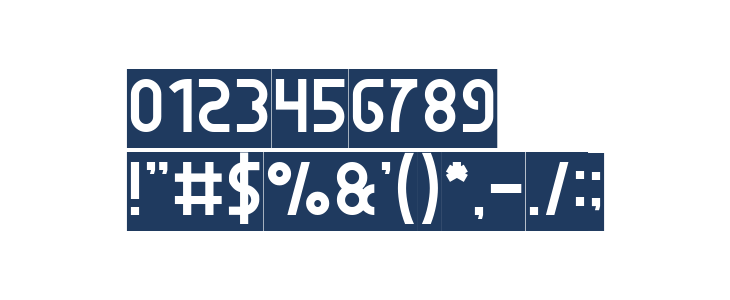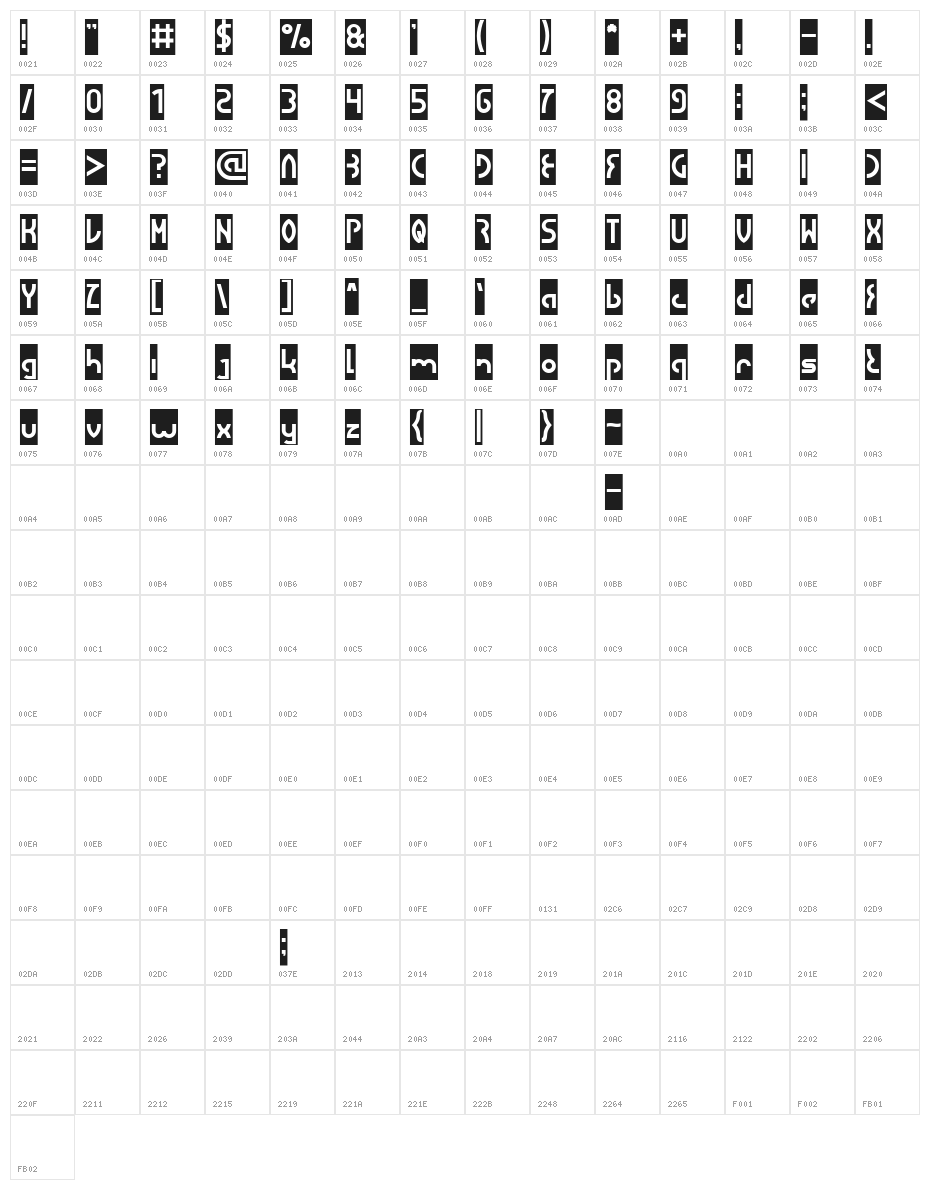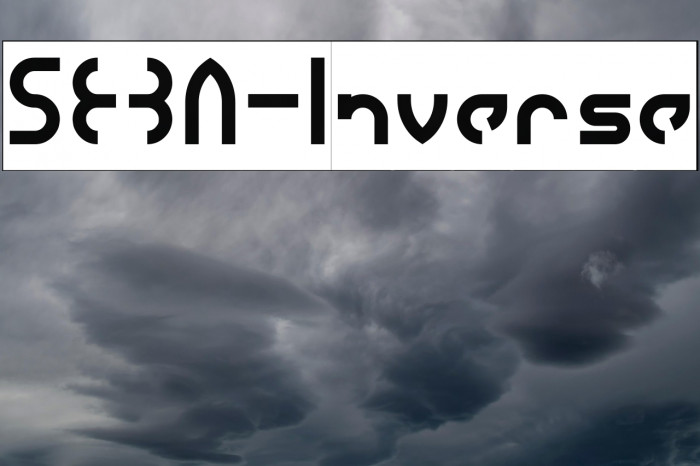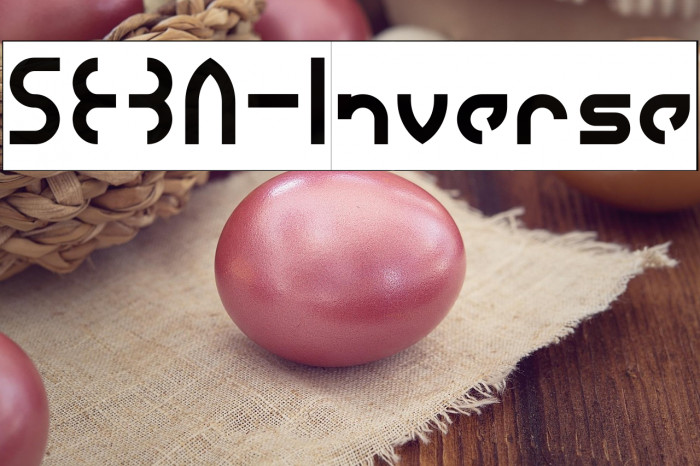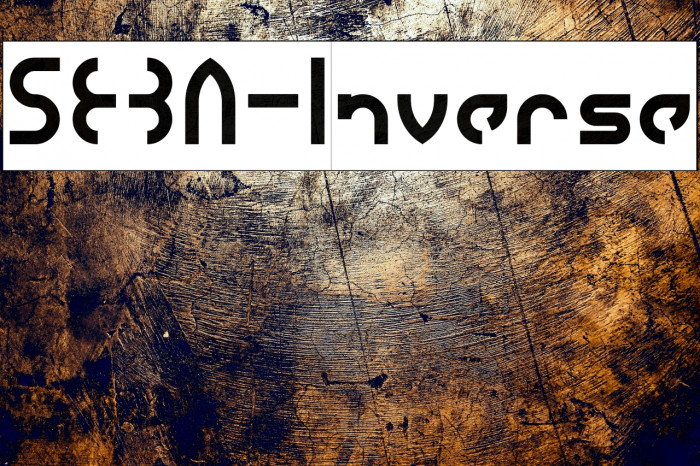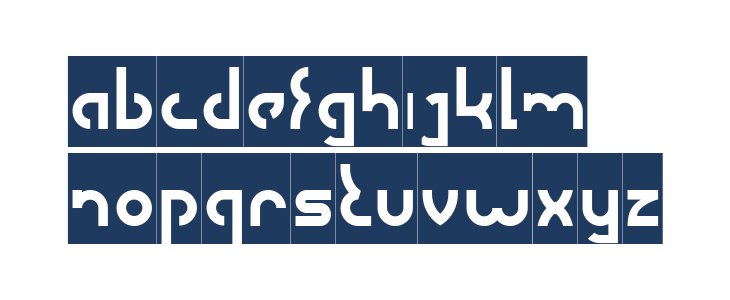
SEBA-Inverse Font
SEBA-Inverse Description
This font features a bold and geometric design with a modern and futuristic aesthetic. The characters are constructed with thick, uniform strokes, creating a strong visual impact. The uppercase and lowercase letters maintain a consistent style, with rounded edges and a slightly condensed form. The numerals and special characters follow the same design principles, ensuring a cohesive look across all elements. The font's unique style makes it stand out, with a playful yet structured appearance that is both eye-catching and versatile.